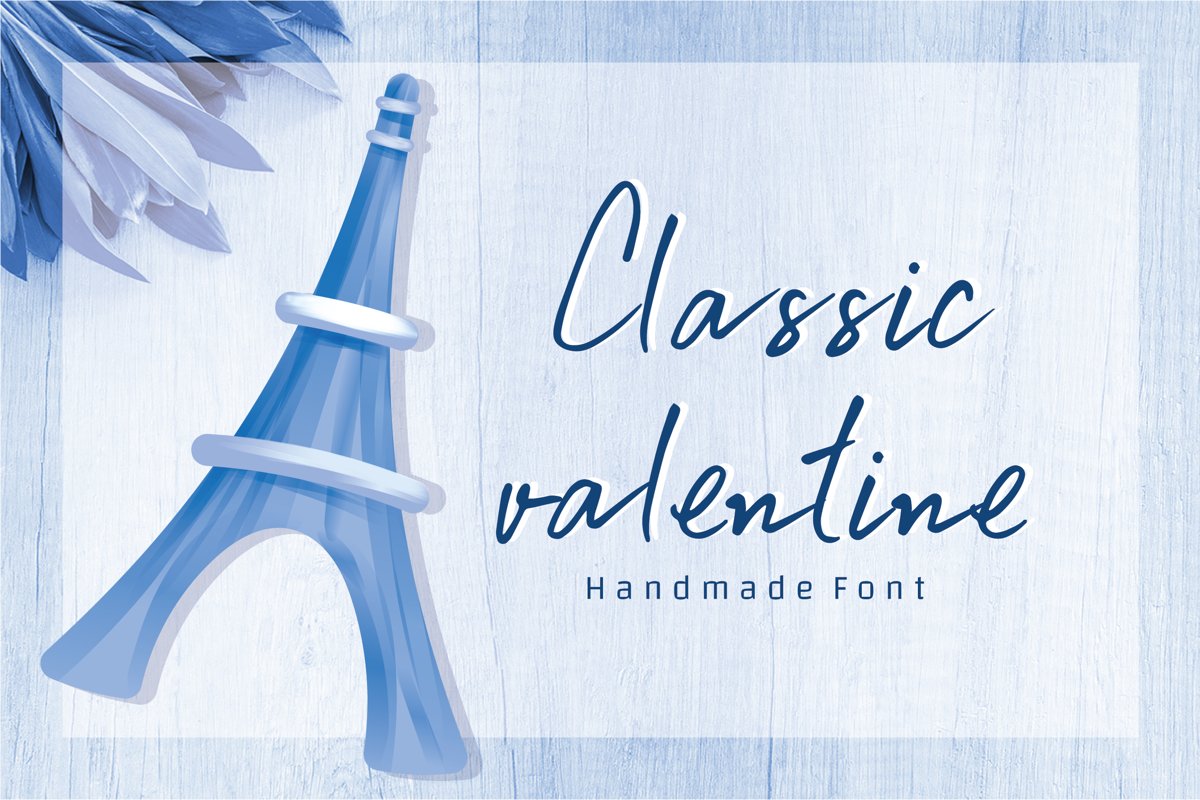
Classic valentine is stylish script handwritten script font with fun informal and perfect for any events.
Classic valentine is perfect for branding projects, logo, wedding designs, social media posts, advertisements, product packaging, product designs, label, photography, watermark, invitation, stationery, and any projects that need handwriting taste.